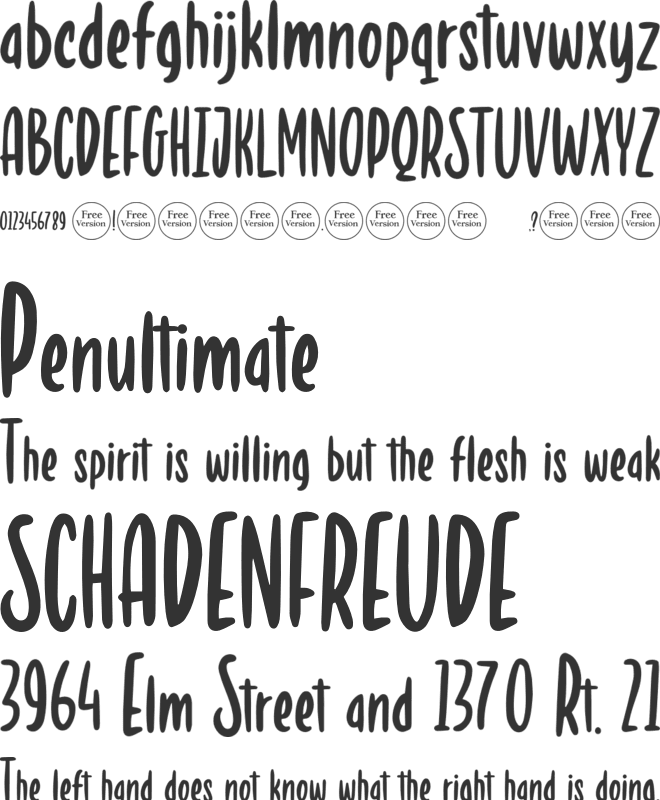
Sundae Bite Free Trial Font
Sundae Bite is a Fun Handwritten Font with ice cream and summer vibes theme.
Perfectly suitable for creating quotes, kids book, t-shirts, poster, mockup, and many more.